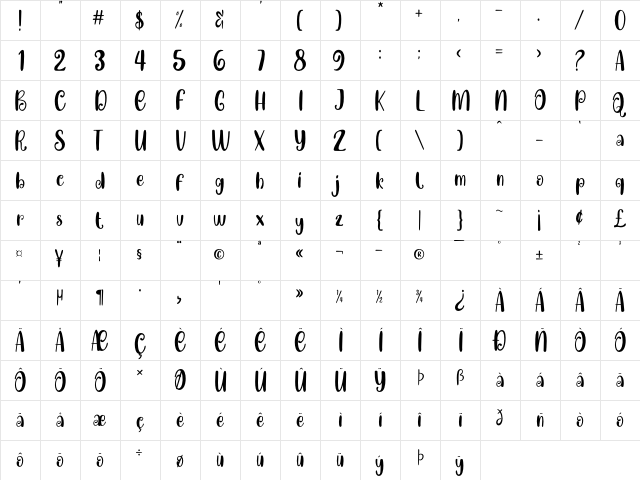
Happy Baby Regular
| Designer | (MJB Letters). 2020. (Muhammad Mujibulloh) |
Design Context for Happy Baby Typeface
Happy Baby is a composed and adaptable typeface that performs quietly and consistently across a wide range of design contexts.